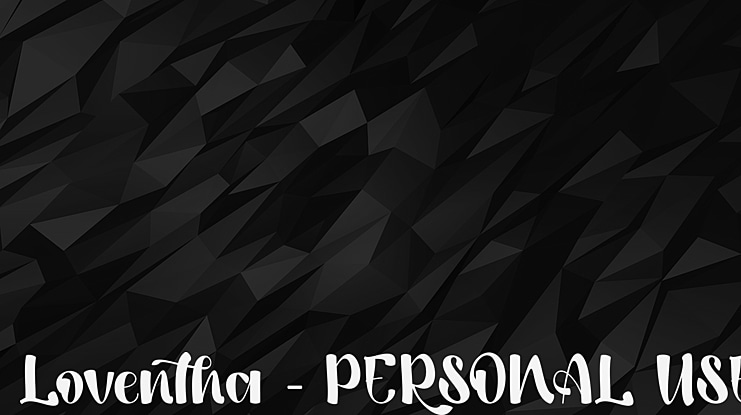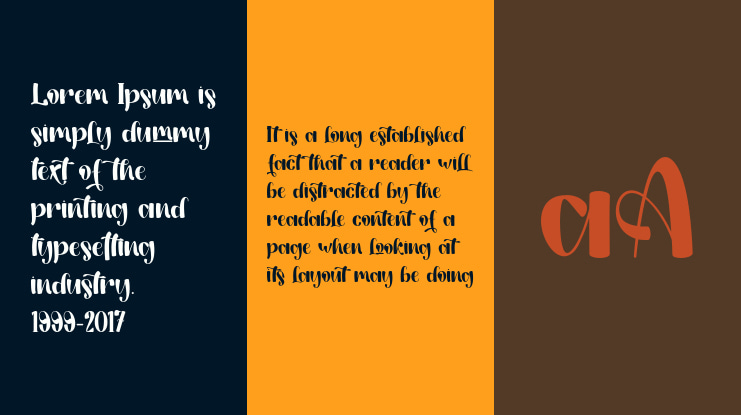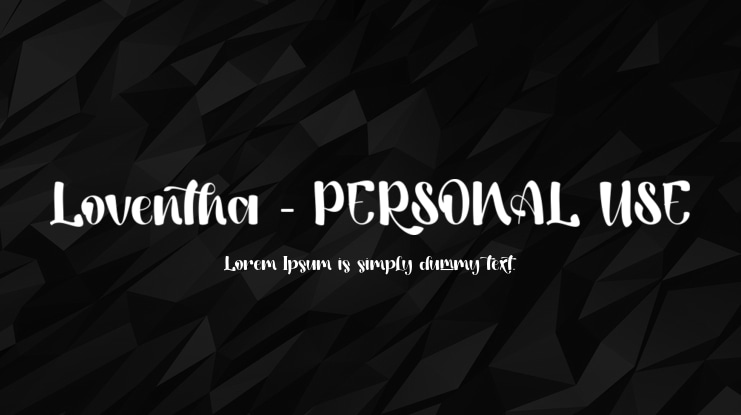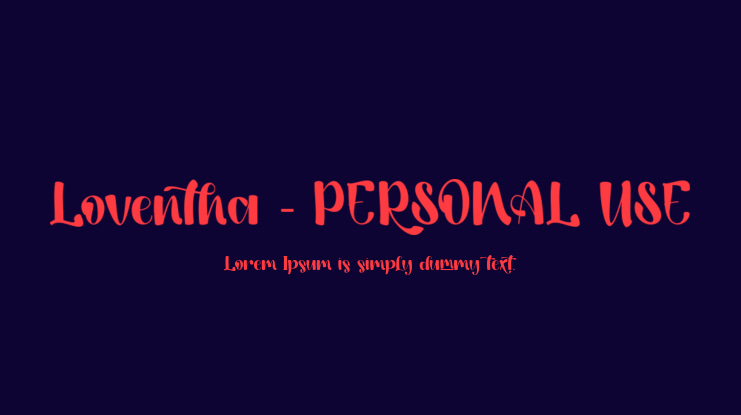
Loventha - PERSONAL USE Font
Loventha font is the latest script written by Arkrist Letter studio. A font inspired by a very romantic thing.
Designed with great care so as to produce letter lines that are very raoi and elegant, look beautiful and romantic.
Loventha is very suitable for greeting cards, t-shirt designs, logos, etc.
Loventha is a masterpiece created with love!